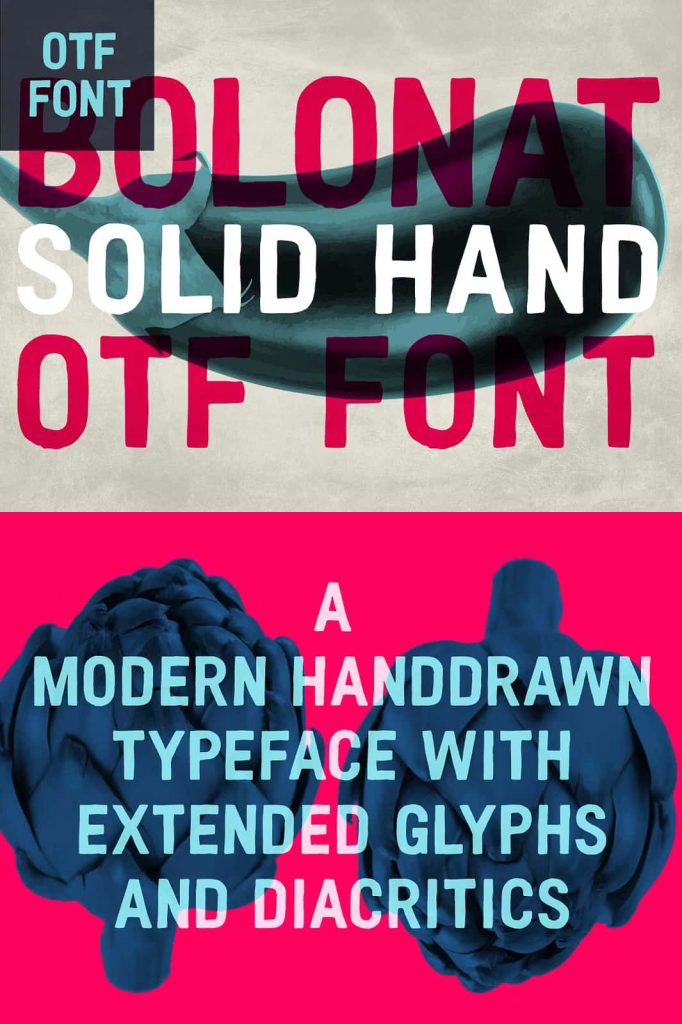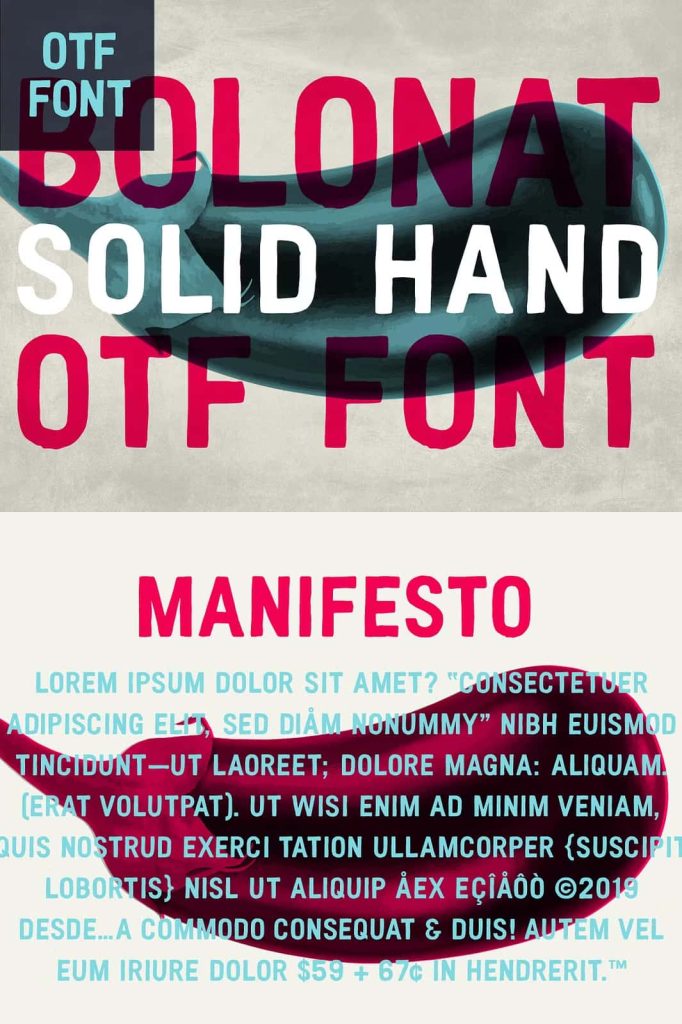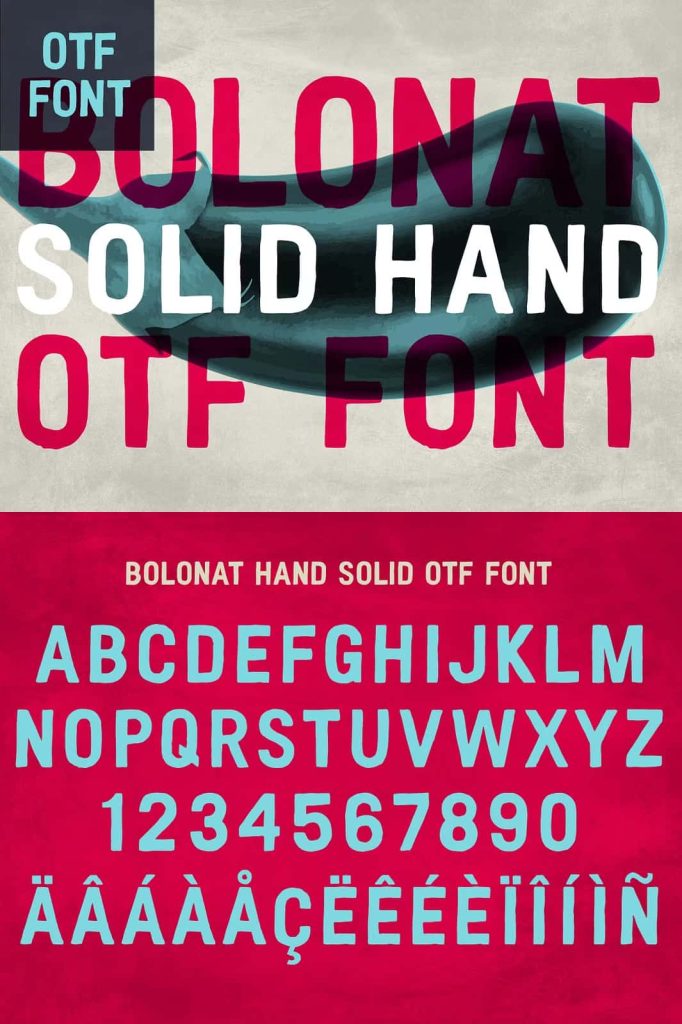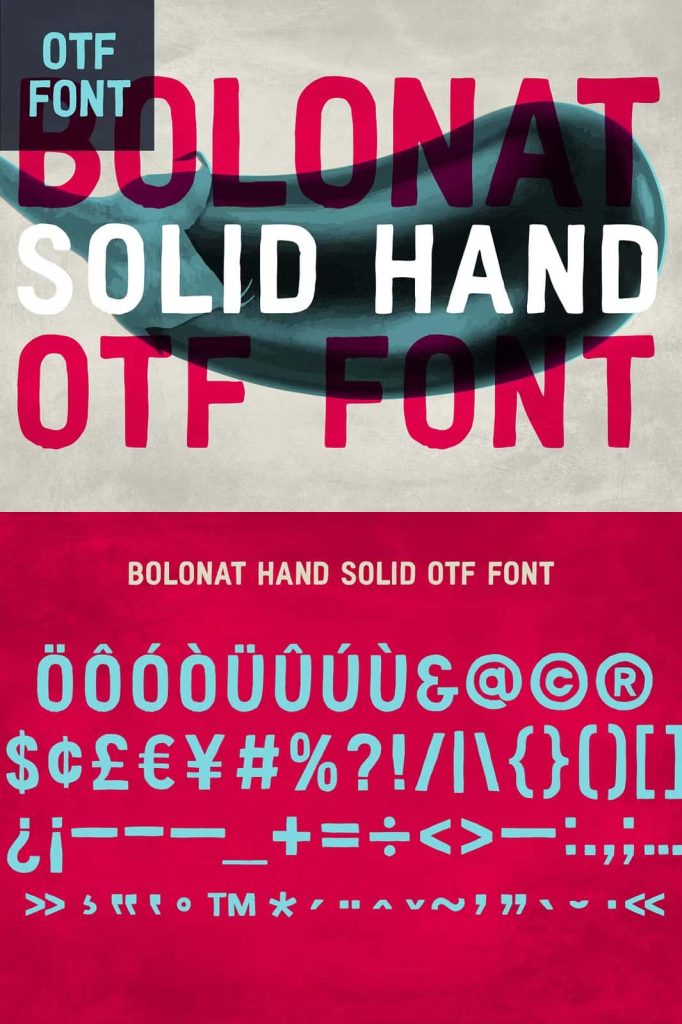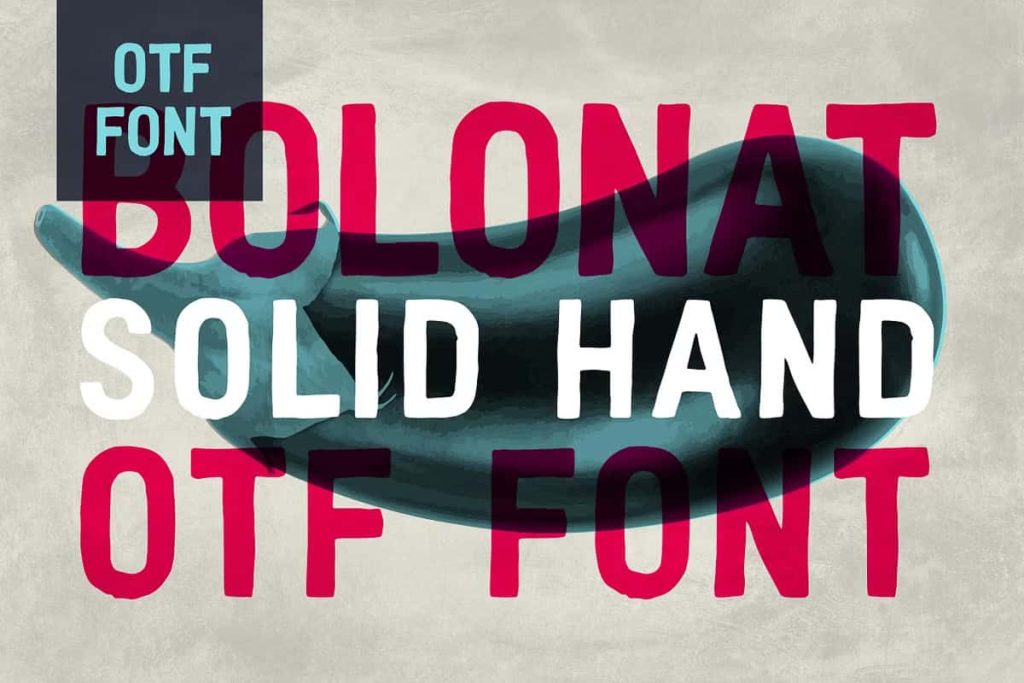
Bolonat Solid Hand OTF Font
Bolonat Hand Font – Authentic Hand-Painted Typeface for Creative Branding
Bolonat Hand Font is a professionally refined OpenType font inspired by an original hand-painted lettering project created for a restaurant in New York City. Developed from the popular ink version previously released, this updated font delivers a polished and versatile typeface that preserves the authentic handcrafted character of the original artwork while providing enhanced usability for modern design projects.
Designed for graphic designers, branding professionals, marketers, and creative agencies, Bolonat Hand Font offers a unique balance between artistic expression and practical functionality. Every letter captures the natural flow, texture, and energy of hand-painted signage, making it an excellent choice for projects that require a genuine human touch.
Inspired by Real Hand-Painted Lettering
The story behind Bolonat Hand Font begins with a custom hand-painted lettering project created specifically for a restaurant located in NYC. The original artwork showcased bold strokes, organic movement, and a distinctive personality that immediately attracted attention. To make this unique style accessible to a wider audience, the lettering was carefully transformed into a fully functional OpenType font while preserving its authentic visual appeal.
Unlike many digital fonts that attempt to imitate hand-painted aesthetics, Bolonat Hand Font originates from genuine brushwork. This foundation gives every character a natural rhythm and visual authenticity that cannot easily be replicated through digital-only design methods.
Professionally Crafted for Seamless Use
Bolonat Hand Font has been meticulously optimized to provide a smooth and efficient user experience. Each glyph has been carefully spaced and pre-kerned, reducing the amount of manual adjustment required during the design process. This thoughtful preparation allows designers to focus on creativity rather than spending excessive time fine-tuning character spacing.
While the font is ready for immediate use, a small number of character combinations may benefit from additional kerning adjustments depending on individual project requirements and personal preferences. This flexibility enables users to achieve the exact visual balance needed for specific layouts and applications.
Key Features
• Authentic hand-painted lettering style.
• Based on original artwork created for a New York City restaurant.
• Carefully pre-kerned and professionally spaced characters.
• Maintains natural brushstroke character and visual texture.
• Suitable for both print and digital projects.
Perfect for Multiple Design Applications
Bolonat Hand Font adapts effortlessly to a wide range of creative projects. Its expressive appearance helps brands establish a memorable identity while adding warmth and personality to visual communications. Whether you are working on commercial branding or personal artwork, this font provides the flexibility needed to create eye-catching results.
• Restaurant branding and menus.
• Logo design and visual identity systems.
• Packaging and product labels.
• Posters and promotional materials.
• Social media graphics and digital campaigns.
• Editorial design and magazine layouts.
• Website headers and marketing content.
• Event signage and custom merchandise.
Bring Authentic Character to Your Designs
In today’s competitive design landscape, authentic visual storytelling helps brands stand out. Bolonat Hand Font delivers the imperfect beauty and organic energy that audiences naturally connect with. The handcrafted appearance creates a welcoming and approachable feel while maintaining the professional quality required for commercial projects.
By combining original hand-painted artistry with modern font engineering, Bolonat Hand Font offers a reliable solution for designers seeking a distinctive typeface that communicates creativity, personality, and craftsmanship. Whether you are developing a restaurant brand, creating promotional materials, or designing unique packaging, this font provides the character and versatility needed to elevate your work.